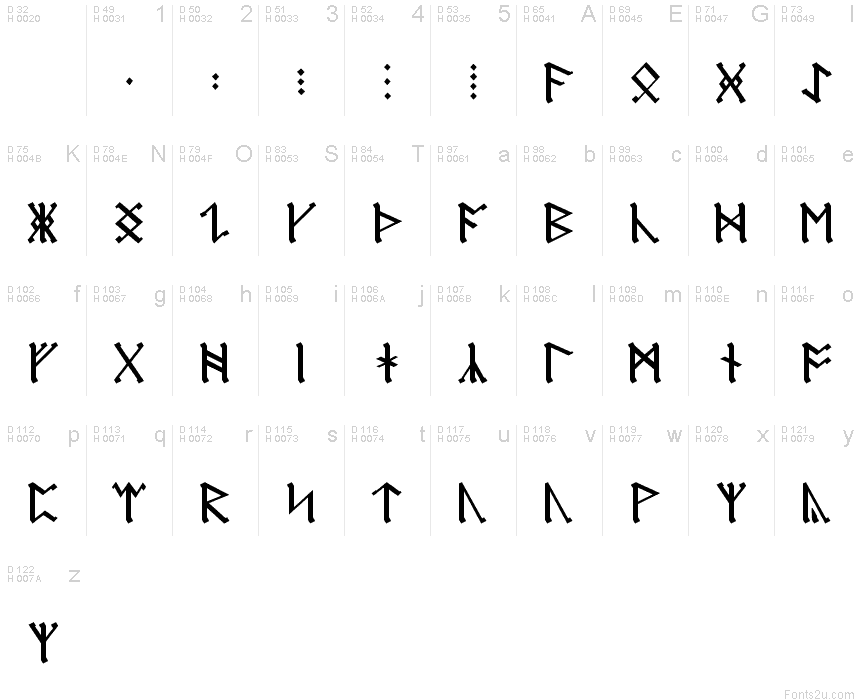
AngloSaxon Runes
AngloSaxon Runes by Daniel Steven Smith is a free runic dingbats font with a blunt, carved look that leans straight into early medieval inscriptional character. The letters read like cut marks in wood or stone - angular strokes, forked branches, and clipped diagonals repeat across the set, giving the font a ritual, artifact-like tone rather than a smooth calligraphic one.
This free font makes sense anywhere you want a historical or mythic signal quickly: book covers, game title cards, festival posters, band marks, and themed packaging all suit its stark rune forms. It also works well for short headings, monograms, and drop-cap moments, because the strong verticals and notched joins keep even a few characters feeling deliberate and symbolic.